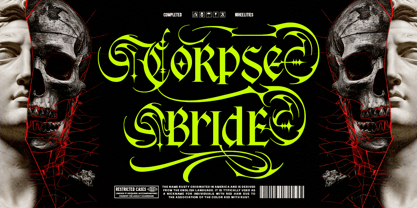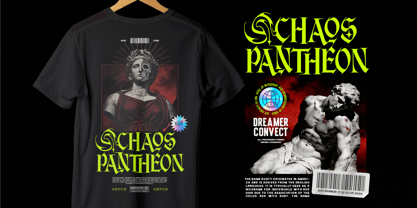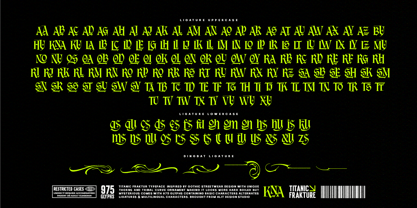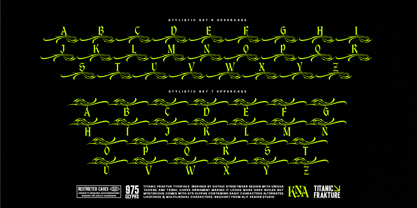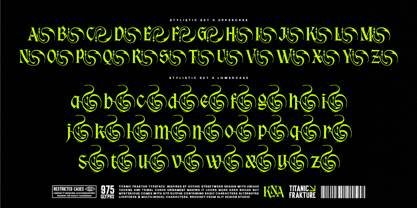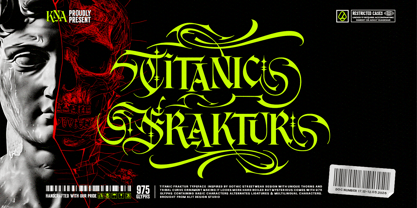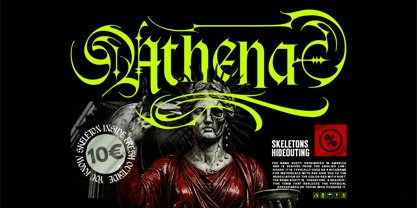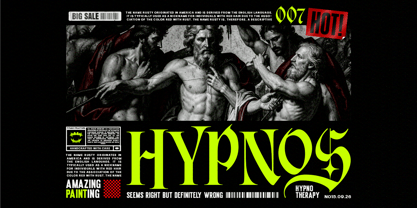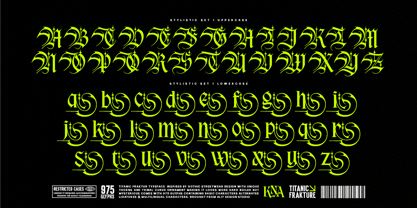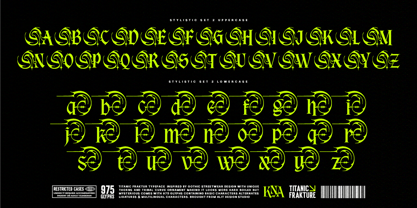
Titanic Fraktur
Titanic Fraktur – Gothic Streetwear Typeface
Unleash a bold fusion of classical heritage and modern underground culture with Titanic Fraktur, a cutting-edge blackletter typeface designed to dominate the contemporary design scene. Inspired by the raw energy of modern streetwear and tribal aesthetics, this font strikes the perfect balance between hard-boiled intensity and mysterious elegance.
Titanic Fraktur masterfully reinvents traditional German blackletter forms by incorporating sharp, aggressive thorns and fluid, organic tribal curves. The result is a hyper-stylized, high-impact display font that commands attention across both digital landscapes and physical merchandise.
With an incredible library of 975 glyphs, Titanic Fraktur isn’t just a font—it’s a comprehensive toolkit for creative expression. It is packed with basic characters, extensive multilingual support, and a massive array of alternates, ligatures, and stunning stylistic sets that allow you to seamlessly weave letters together for completely custom logotypes and layouts.
• Unique Aesthetic: A powerful blend of Gothic blackletter, modern streetwear, and tribal-inspired ornamentation.
• 975 Total Glyphs: Offers unparalleled versatility for custom type treatments.
• 8 Stylistic Sets: Includes a vast selection of decorative alternates, elaborate swashes, and custom letter extensions.
• Ligatures & Alternates: Effortlessly create fluid, interconnected typography.
• Full Multilingual Support: Ready for international branding and global design projects.
Perfect For:
• Streetwear & Fashion Branding: Standout apparel designs, t-shirt graphics, and clothing tags.
• Music & Entertainment: Heavy metal, hip-hop, or electronic music album covers, festival posters, and band merch.
• Digital Graphics: Striking social media assets, gaming text, and YouTube thumbnails.
• Editorial Design: Edgy magazine layouts, bold headlines, and striking book covers.
• Packaging & Logotypes: Memorable brand identities, liquid death-style beverage packaging, and tattoo-inspired art.